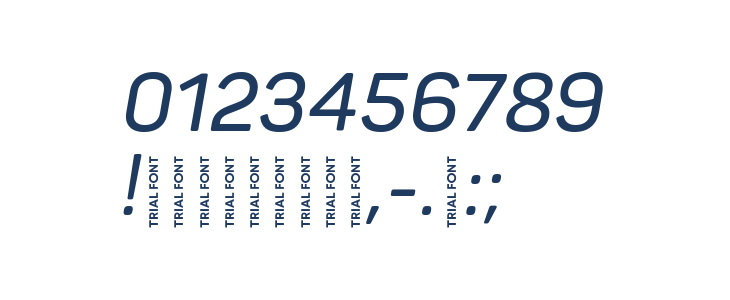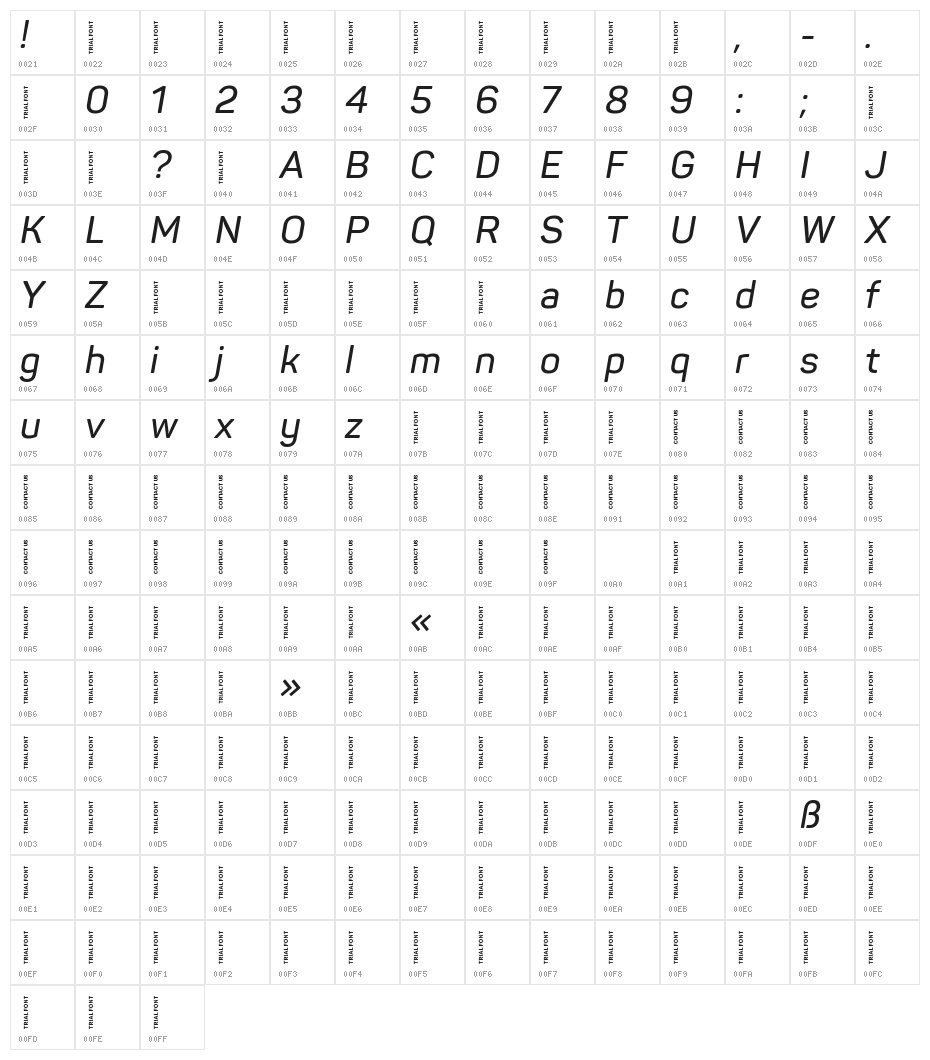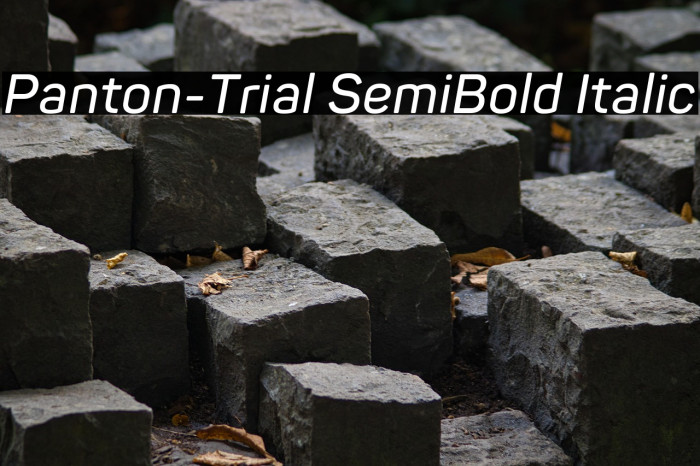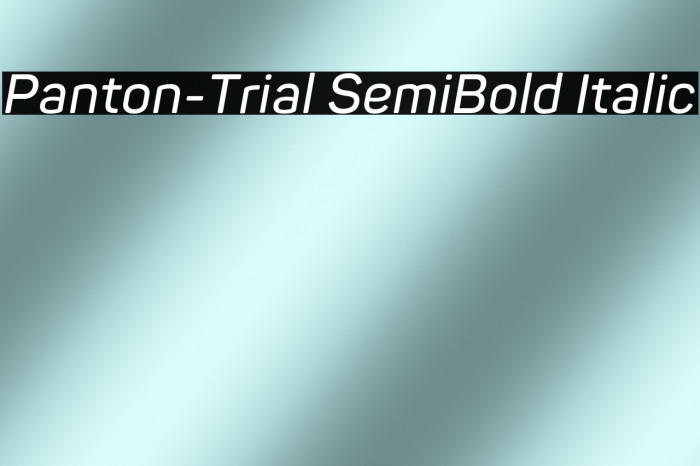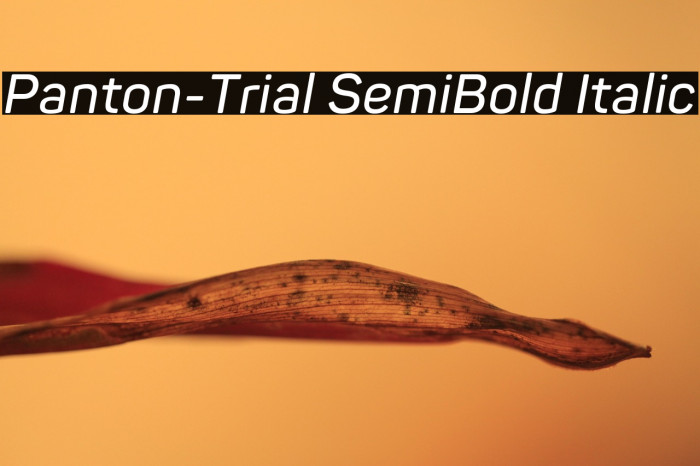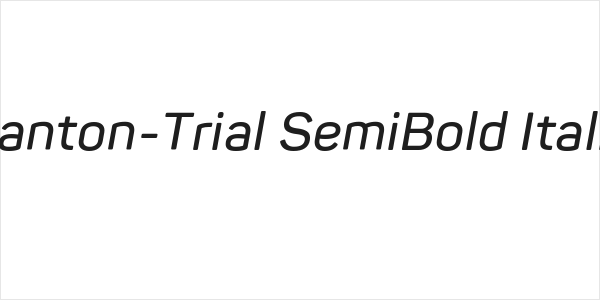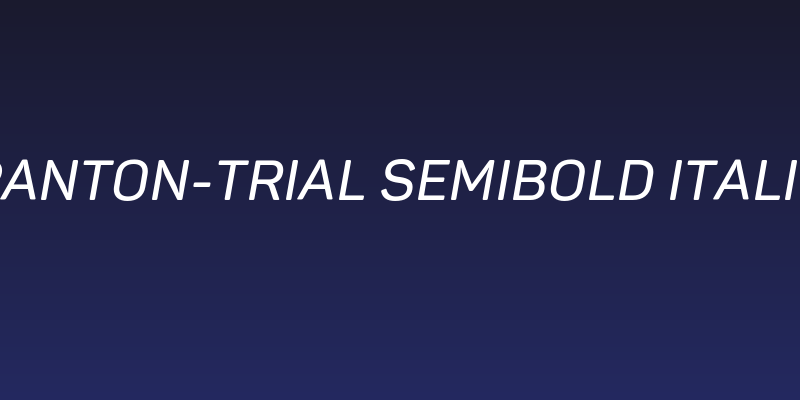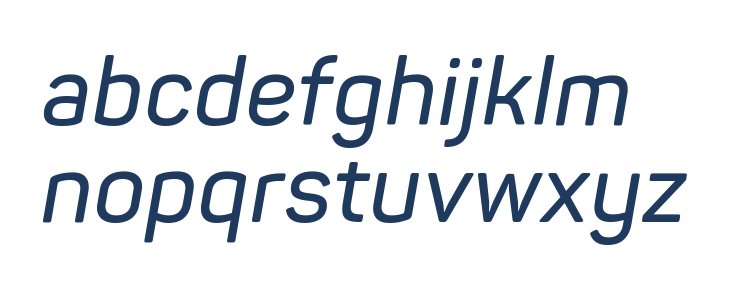
Panton-Trial SemiBold Italic Font
Panton-Trial SemiBold Italic Description
This font exhibits a sleek and modern design with a semi-bold weight and italic style. The characters are slightly slanted, giving a dynamic and forward-moving appearance. The sans-serif design ensures clean lines and a contemporary feel, making it versatile for various applications. The numerals and special characters maintain the same stylistic features, ensuring consistency across different uses. The overall look is professional yet approachable, suitable for both digital and print media.
| Use Case | Headlines, Logos, Digital Media |
| Proposed Projects | Ideal for branding, advertising, and editorial design projects where a modern and dynamic look is desired. |